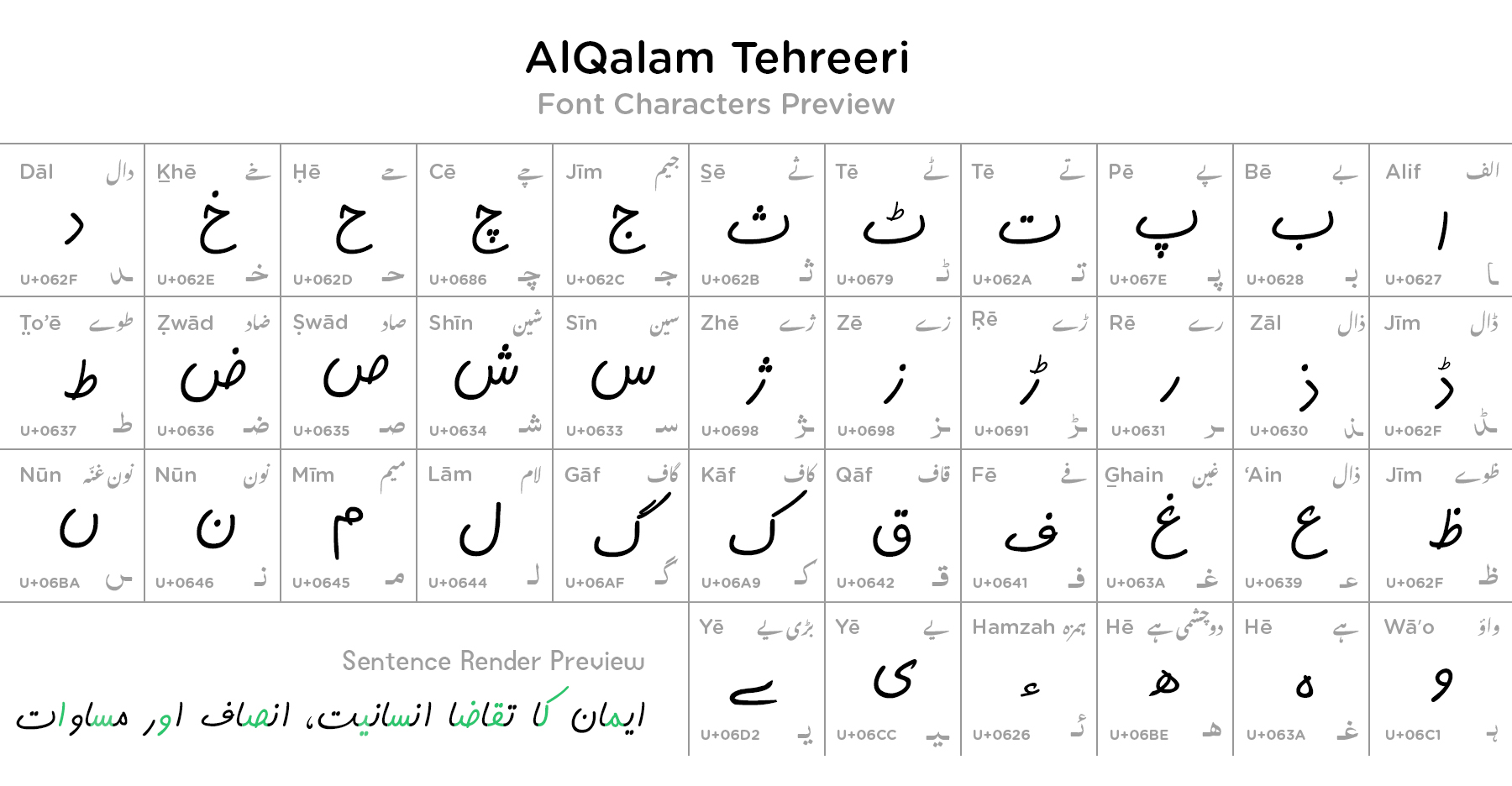
AlQalam Tehreeri is an Urdu font with ties to traditional Arabic writing. It is designed by Syed Shakir Ul Qadree, a Pakistani type designer and calligrapher. It perfectly blends modernity and tradition with a charset of 219 and a glyph count of 334. The font emulates the look of casual handwriting, with uneven lines, varying stroke thickness, and bouncy letterforms. This gives it a personal and informal feel.
The letters have mostly rounded curves and loops, creating a soft and friendly appearance. This contrasts with sharp geometric fonts and adds to the lighthearted vibe. Many of the letters are connected flowingly, mimicking the rhythm of natural handwriting. Despite its stylistic elements, the AlQalam Tehreeri font maintains good readability due to its clear letterforms and consistent spacing. This makes it suitable for a variety of applications, including headlines, short phrases, branding, and even body text in certain contexts. Because of its vibrancy and tradition, you can also use this timeless font in brochures, flyers, posters, logo designs, invitation cards, digital designs, and much more.